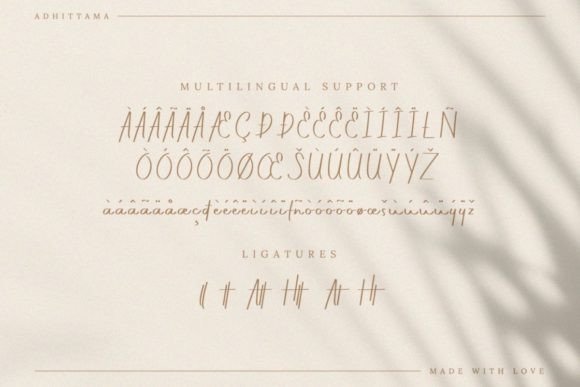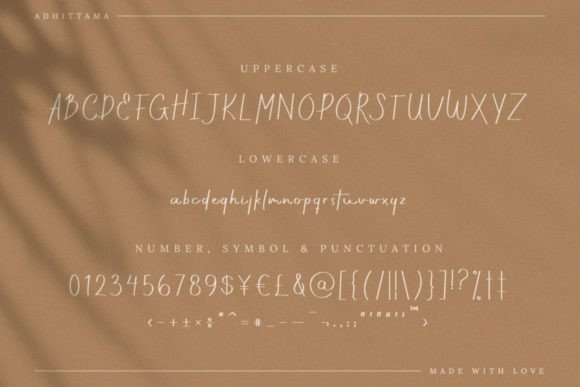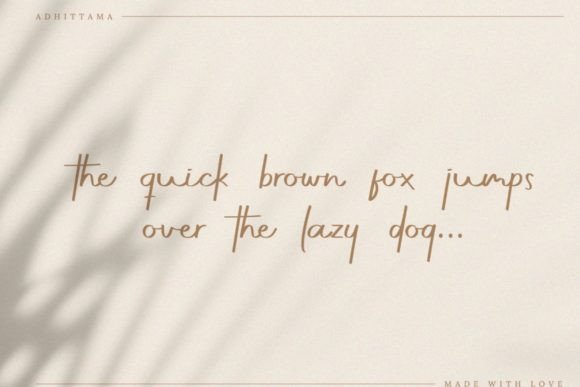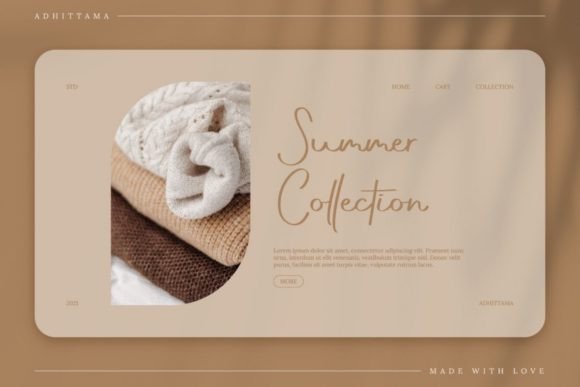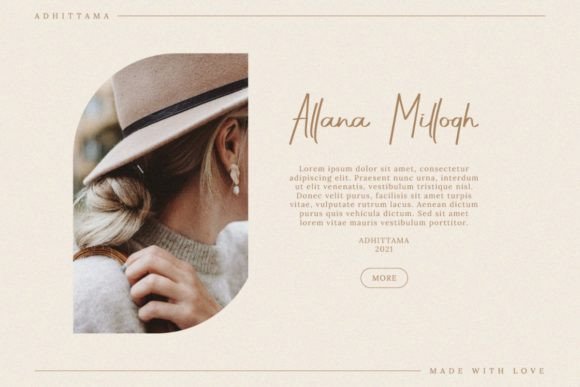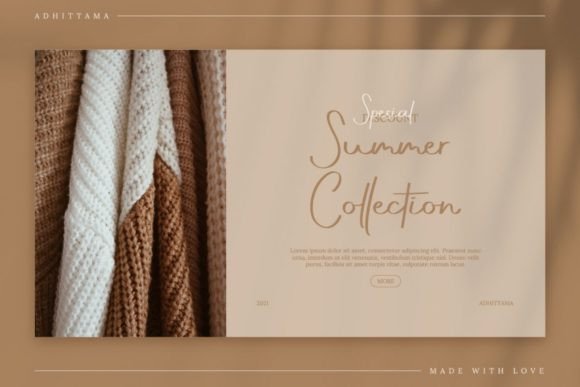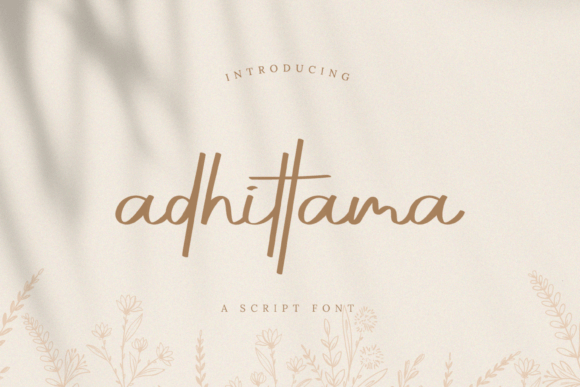
Introducing Adhittama Font: Elevate Your Designs with Elegance and Sophistication
In the world of typography, fonts play a crucial role in conveying the tone and personality of a design. For designers and crafters seeking to add a touch of elegance and sophistication to their work, the Adhittama Font is an excellent choice. This beautiful font is adapted from two types of script fonts: Signature and Handwritten, making it perfect for a wide range of design applications.
The Inspiration Behind Adhittama Font
Adhittama Font is a unique blend of Signature and Handwritten script fonts. The Signature font style is known for its classical and sophisticated vibe, while the Handwritten font style adds a personal and artistic touch. By combining these two styles, Adhittama Font offers a distinctive and eye-catching aesthetic that can elevate any design.
Characteristics of Adhittama Font
As a Handwritten Font, Adhittama has a natural, fluid feel that makes it perfect for designs that require a personal touch. Its classical vibes, inherited from the Signature font style, add a level of sophistication and elegance. The font’s unique characteristics make it suitable for various design applications, including:
- Lettering: Add a touch of personality to your lettering designs with Adhittama’s elegant and artistic feel.
- Postcards: Create eye-catching postcards that stand out from the crowd with Adhittama’s unique style.
- Wedding Invitations: Make your wedding invitations truly special with Adhittama’s sophisticated and elegant vibe.
- Greeting Cards: Add a personal touch to your greeting cards with Adhittama’s beautiful and artistic font.
- Decorations: Use Adhittama to create stunning decorative designs that add a touch of elegance to any space.
- Brands: Establish your brand’s identity with Adhittama’s distinctive and memorable style.
Why Choose Adhittama Font?
With Adhittama Font, you can:
- Create artistic and eye-catching designs that stand out from the crowd.
- Add a touch of elegance and sophistication to your designs.
- Convey a sense of personality and uniqueness in your designs.
- Enhance your brand’s identity with a distinctive and memorable font style.
Tips for Using Adhittama Font
To get the most out of Adhittama Font, consider the following tips:
- Use Adhittama as a headline font to add a touch of elegance and sophistication to your design.
- Pair Adhittama with a simpler font to create a beautiful contrast and add visual interest.
- Experiment with different colors and textures to enhance the font’s artistic and elegant feel.
- Use Adhittama consistently across your designs to establish a strong brand identity.
Adhittama Font is a beautiful and versatile font that can elevate your designs with its elegance and sophistication. Whether you’re a designer, crafter, or simply someone looking to add a personal touch to your work, Adhittama is an excellent choice. With its unique blend of Signature and Handwritten script fonts, Adhittama offers a distinctive and eye-catching aesthetic that can enhance any design. So why not give Adhittama a try and experience the difference it can make in your designs?